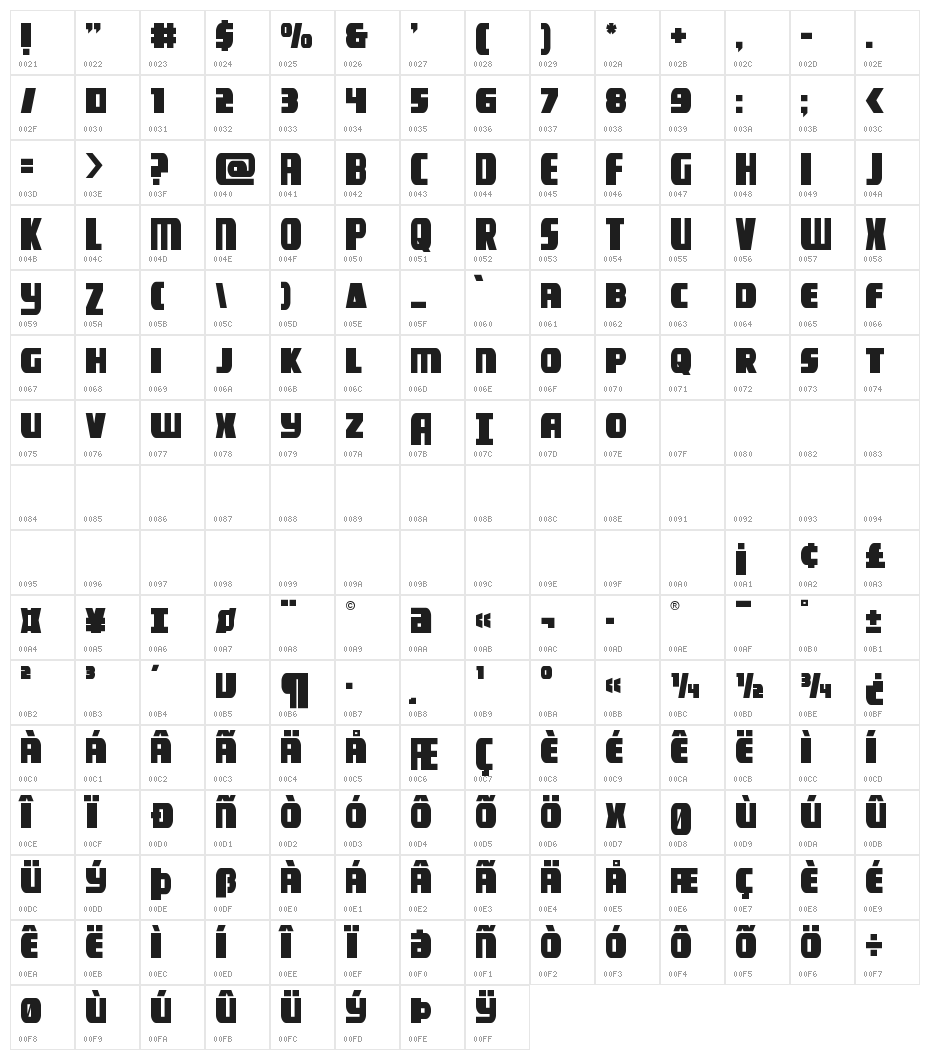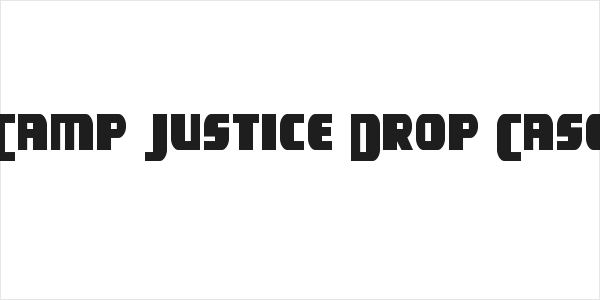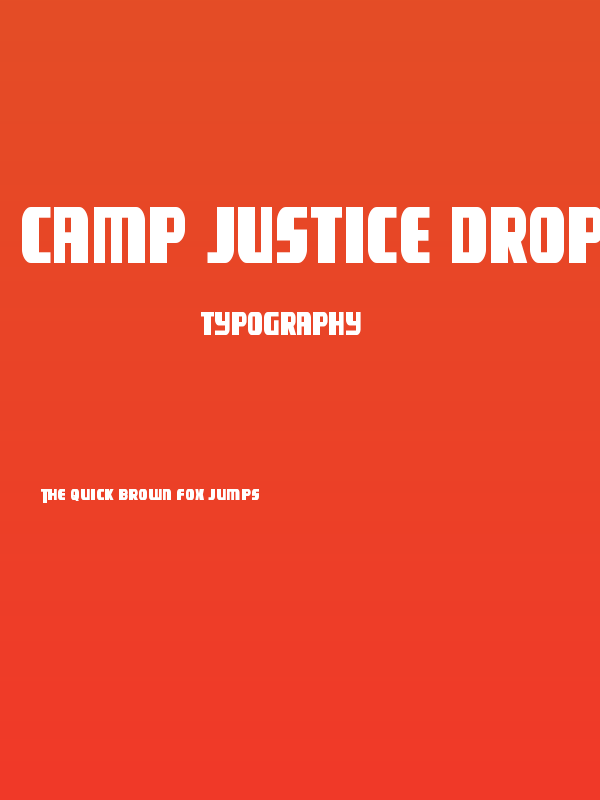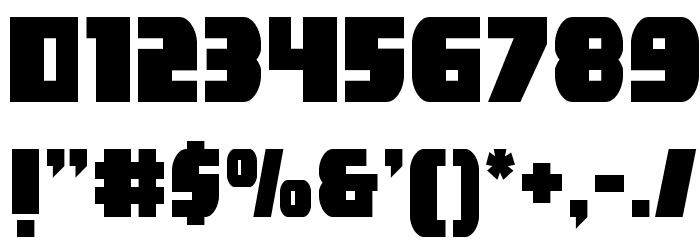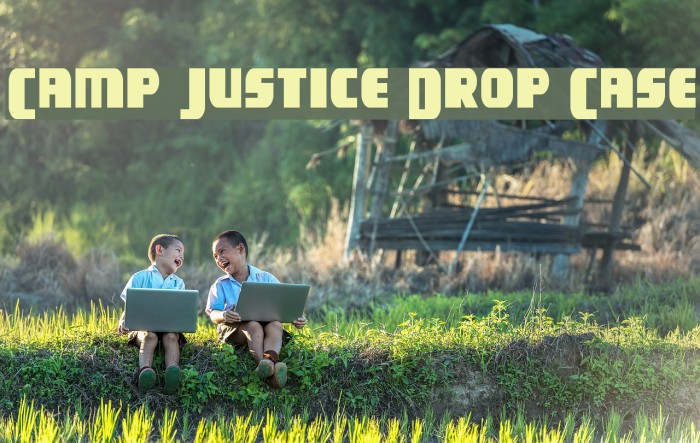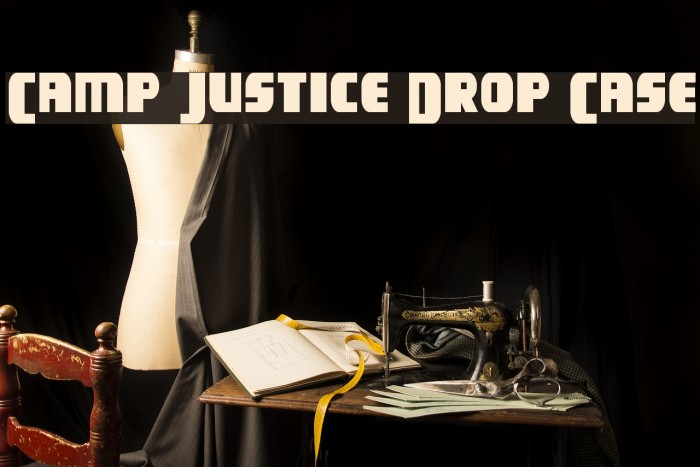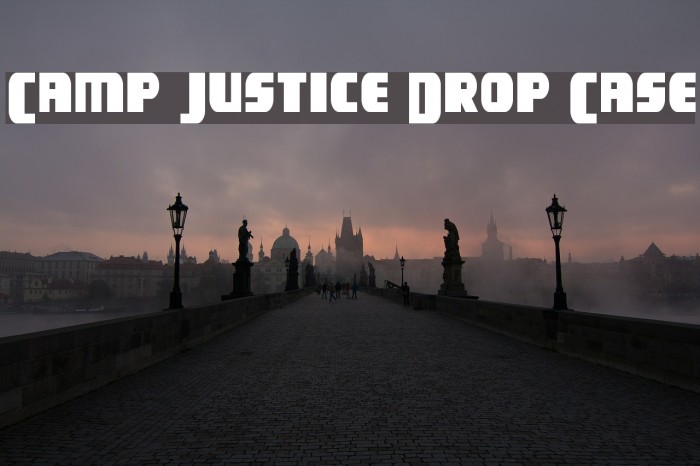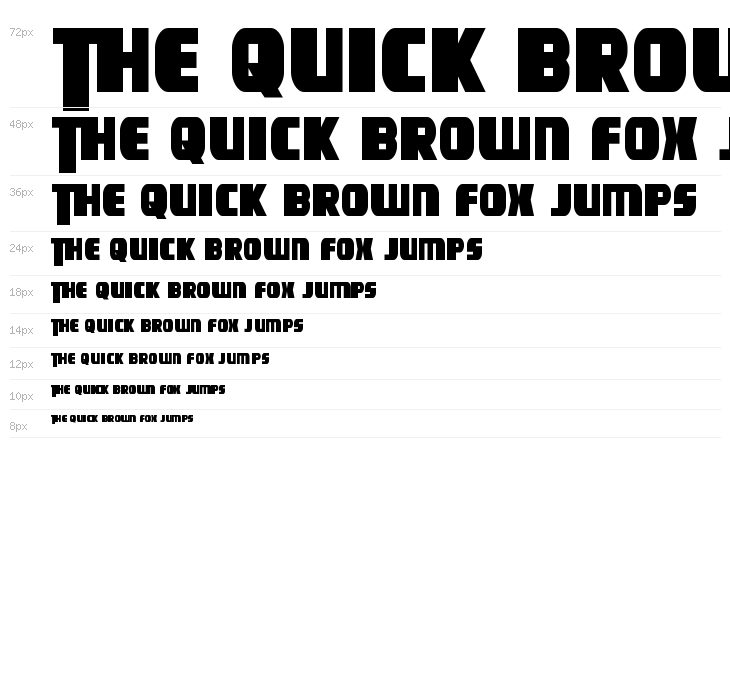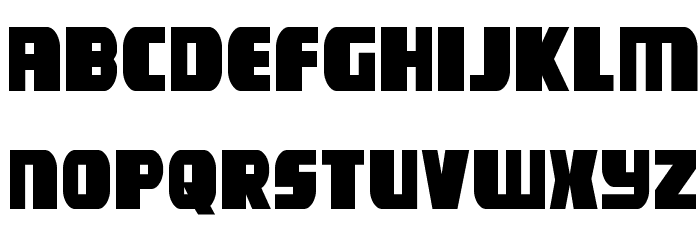
Camp Justice Drop Case Font
Camp Justice Drop Case Description
This font features a bold and impactful design with a strong geometric structure. The characters are blocky and robust, giving a sense of strength and stability. The uppercase and lowercase letters maintain a consistent width, creating a uniform appearance. The numbers and special characters are designed to match the boldness of the alphabet, ensuring a cohesive look across all elements. The font's style is reminiscent of industrial or military themes, making it suitable for projects that require a commanding presence.
| Proposed Projects | Ideal for posters, logos, branding materials, and headlines that need to convey strength and authority. |